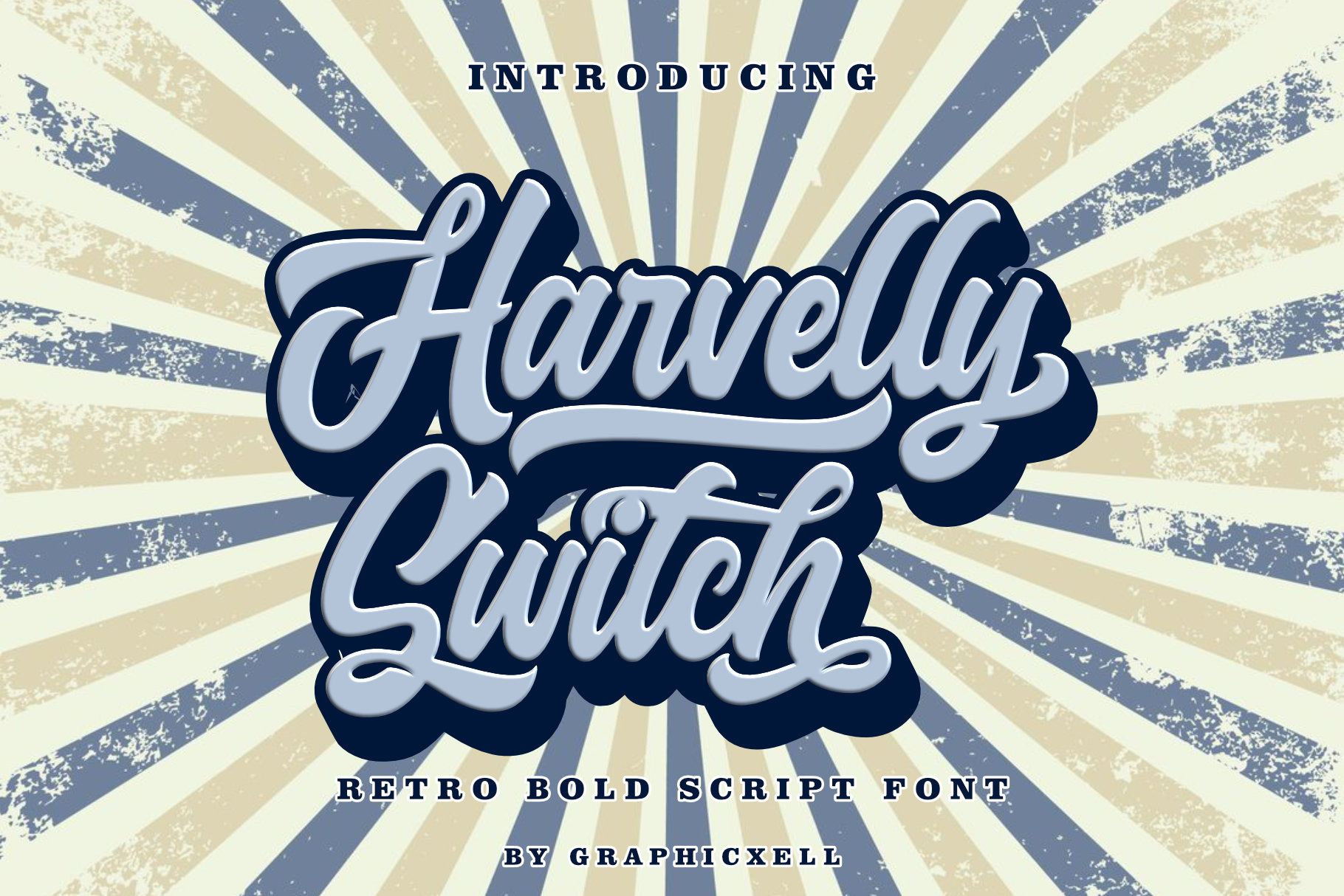
Harvelly Switch - Retro Font
Harvelly Switch is a Bold script font. This font can be used for various purposes, including for invitations, weddings, birthdays, fashion, products, feminine, beauty, salon, product packaging, quotes, product designs, crafters, labels, photography, watermarks, t-shirts, logos & branding. Everything can be accessed using software that supports Opentype, such as Adobe Indesign, Adobe CS Illustrator, Adobe Photoshop CC, and Corel Draw.